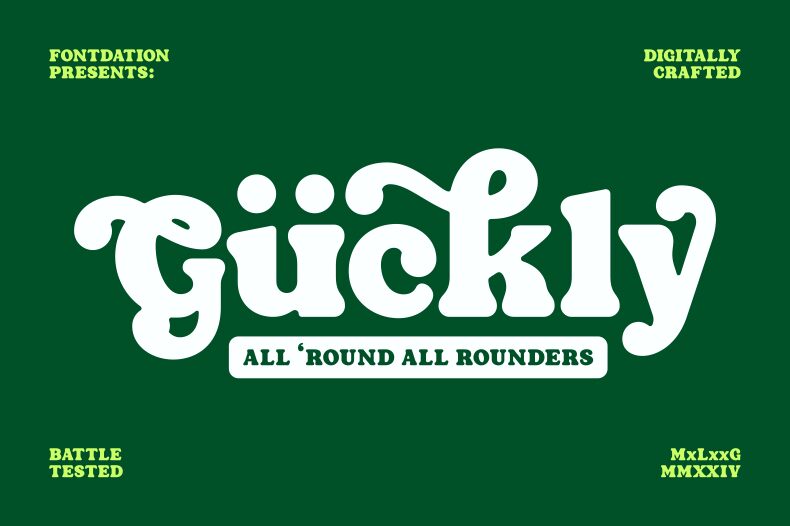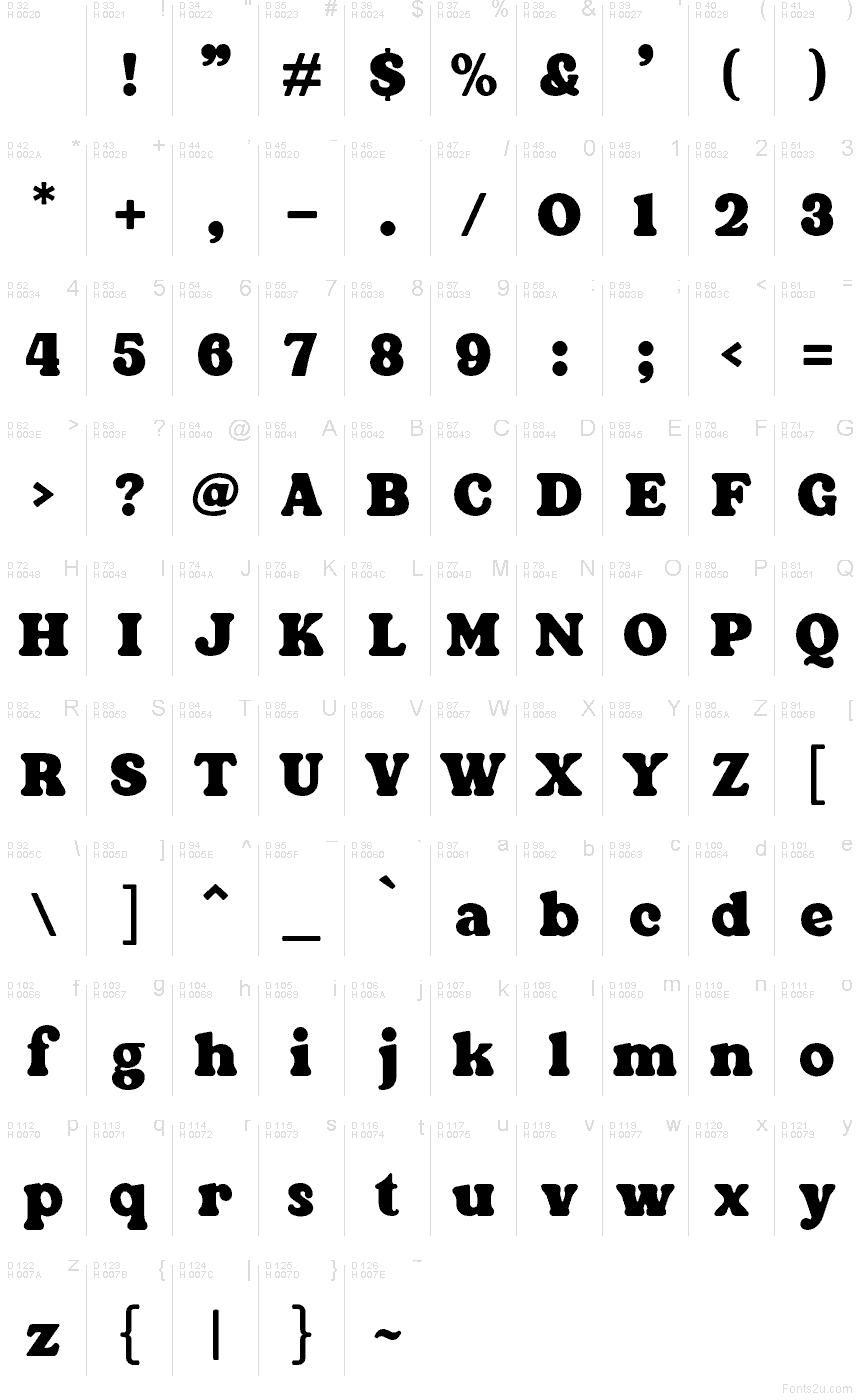
Guckly font by Twicolabs Fontdation is a free retro typeface with chunky, soft-edged letters that feel like they’ve been puffed up with air. Its inky, rounded curves and tight, bouncy rhythm give every word a friendly, almost cartoonish energy, without tipping into chaos. The bold weight makes it instantly readable even at a distance, so your message hits fast and sticks.
Using Guckly, you can bring playful punch to snack packaging, kids’ branding, posters, event flyers, social media graphics, and quirky logo wordmarks. This free font shines when set large, where its bulbous shapes can really breathe; pair it with a clean geometric sans in smaller text to keep the overall layout balanced and easy to scan.
- slanted/italic version
- multilingual characters
- lots of OpenType characters (including Alternates, Stylistic Sets, Ligatures, etc)